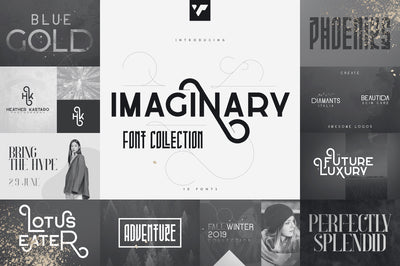
Imaginary Font Collection - 10 fonts
Introducing Imaginary Font Collection - 10 fonts in 4 typefaces
The Imaginary Font Collection is elegant, vintage collection loaded with 10 serif, display and script fonts, vector illustrations and multilingual support. They are very versatile fonts that works great in large and small sizes.
This collection is perfect for branding projects, home-ware designs, product packaging, magazine headers - or simply as a stylish text overlay to any background image.
1. Blue Gold sans serif font + Extras
• Blue Gold sans serif font with tons of alternative glyphs and multilingual support
• 26 Black Gold ornaments
1. Lotus Eater - sans serif font
• Uppercase,lowercase, numeral,punctuation & Symbol
• Cyrillic support - Russian, Ukrainian, Bulgarian and more
• Alternate glyphs
• Ornaments
• Multilingual support
1. Perfectly Splendid Typeface - 5 font
• Uppercase numeral, punctuation & Symbol
• Hairline, Light, Regular, Bold, Black
• Ligatures
• Multilingual support
1. Phoeniks - Display font
• Uppercase,lowercase,numeral,punctuation & Symbol
• Multilingual
• Ligatures
• Alternate glyphs